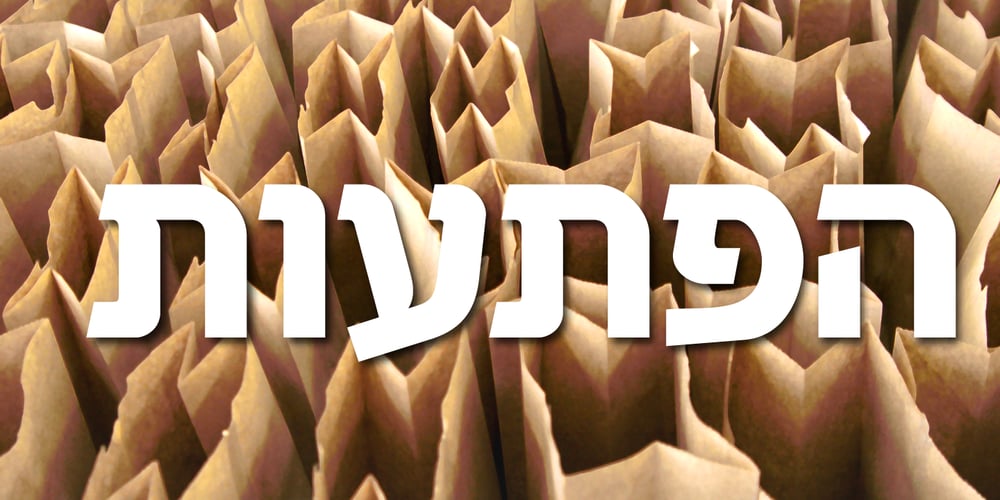
Koteret Mishne MF
Koteret Mishne MF font
Koteret Mishne MF Font Family was designed by Zvika Rosenberg and published by Masterfont. Koteret Mishne MF contains 4 styles and family package options. A elegant and flexible font family to suit all your needs, from small tyoe to large billboards.